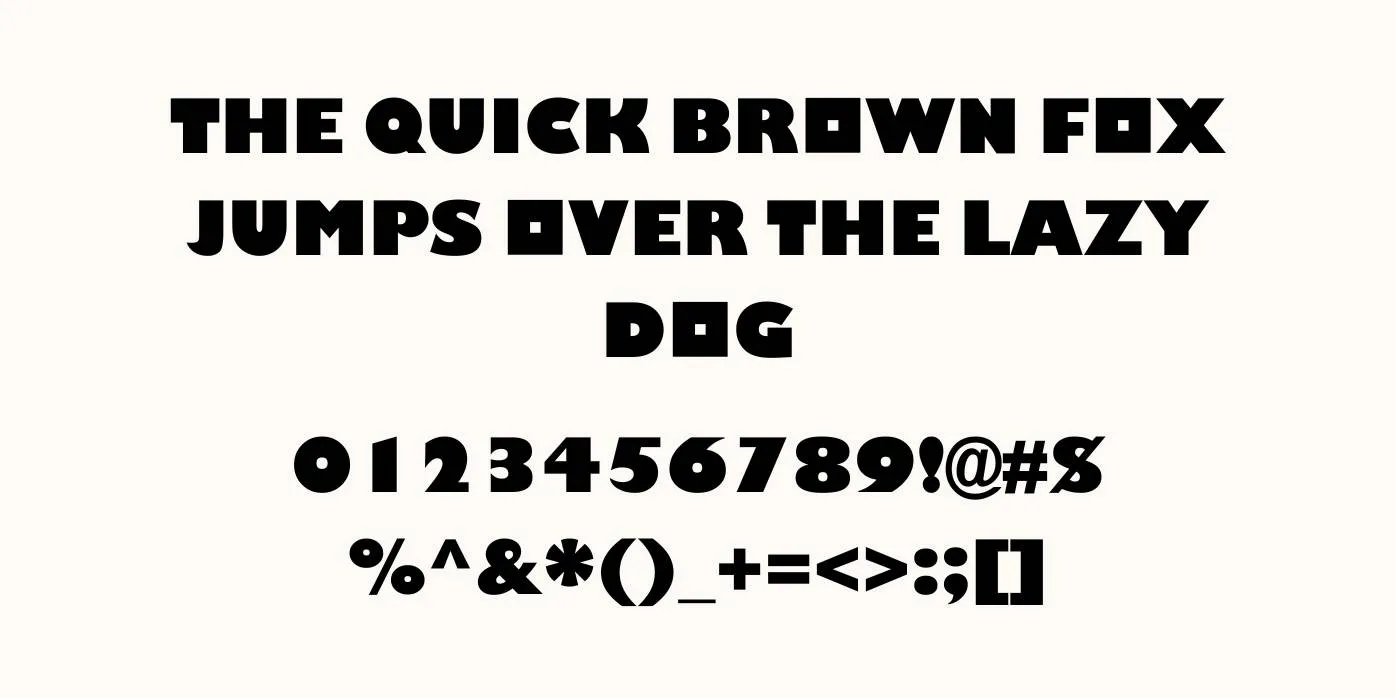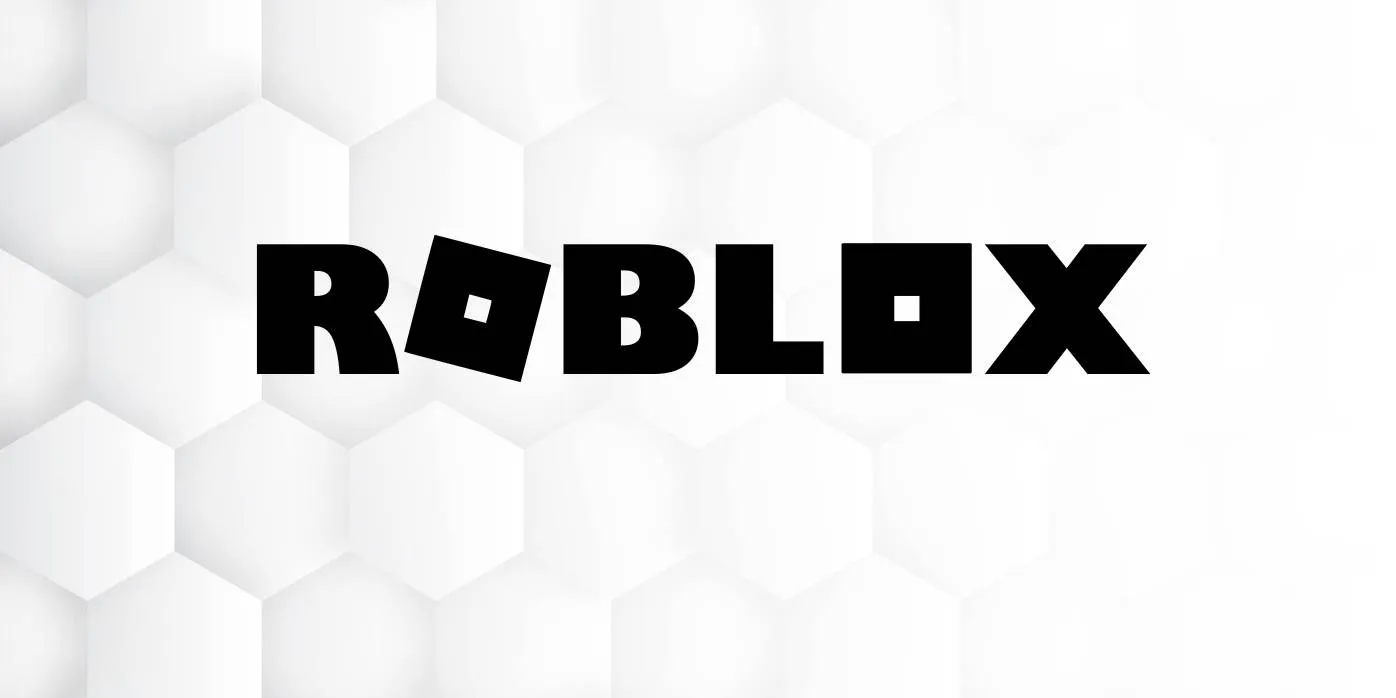
Roblox Font
Roblox font is a very amazing font and it was designed for making an appearance in video games. This stunning font was designed by David Baszucki and Erik Cassel. This font belongs to the display texture family and it was started in 2006. It has many different features and has 141 characters, 60 glyphs, and 1000 units per Em.
It can be read easily even in small sizes. You can make so many attractive banners, posters, and flyers which look very attractive with this font. It is also considered a suitable choice for both print and digital media. You can make e-book covers and magazine covers.